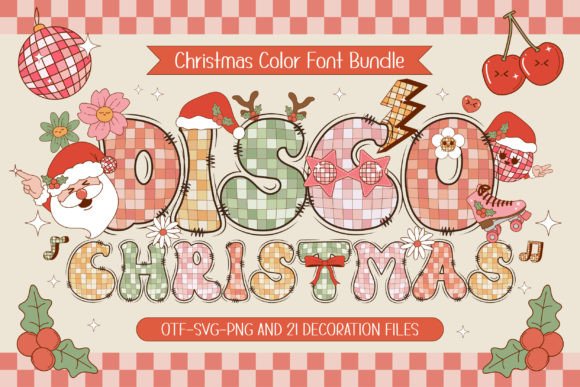
Disco Christmas Font: Add a Groovy Retro Flair to Your Holiday Celebrations
Are you looking for a unique and fun way to add some sparkle to your holiday celebrations? Look no further than the Disco Christmas font! This playful font combines the festive spirit of Christmas with the shimmer and fun of disco balls, making it the perfect addition to your holiday decorations, party invitations, and gift tags.
What Makes Disco Christmas Font So Special?
- Groovy Retro Vibes: The Disco Christmas font brings lively, groovy vibes that are sure to set the tone for a fun and festive holiday party.
- Four Vibrant Theme Color Fonts: This font features four different theme color fonts, each one more vibrant and fun than the last.
- 21 Bonus Matching Clip Arts: The Disco Christmas font also includes 21 bonus matching clip arts, making it easy to add a little extra something to your holiday projects.
- Perfect for DIY Projects: Whether you’re making holiday posters, T-shirts, or custom DIY craft projects, the Disco Christmas font is the perfect choice.
Endless Possibilities with Disco Christmas Font
The Disco Christmas font is incredibly versatile, making it perfect for a wide range of holiday projects. Here are just a few ideas to get you started:
- Holiday Posters: Create eye-catching holiday posters that will grab everyone’s attention.
- T-Shirts and Apparel: Add a fun and festive touch to your holiday T-shirts and apparel.
- Branding and Marketing: Use the Disco Christmas font to add a little extra sparkle to your holiday branding and marketing materials.
- Custom DIY Craft Projects: From holiday gift tags to decorations, the Disco Christmas font is perfect for all your custom DIY craft projects.
- Quotes and Personalized Names: Use the Disco Christmas font to add a fun and festive touch to your holiday quotes and personalized names.
Tips and Tricks for Using Disco Christmas Font
Here are a few tips and tricks to help you get the most out of the Disco Christmas font:
- Experiment with Different Colors: Don’t be afraid to experiment with different colors and combinations to find the perfect look for your holiday project.
- Use with Clip Arts: The 21 bonus matching clip arts that come with the Disco Christmas font are a great way to add a little extra something to your holiday projects.
- Pair with Other Fonts: Try pairing the Disco Christmas font with other fonts to create a unique and eye-catching look.
The Disco Christmas font is the perfect way to add a groovy retro flair to your holiday celebrations. With its four vibrant theme color fonts, 21 bonus matching clip arts, and compatibility with a wide range of design programs and cutting machines, this font is sure to become a holiday favorite. So why wait? Download the Disco Christmas font today and start adding a little extra sparkle to your holiday projects!